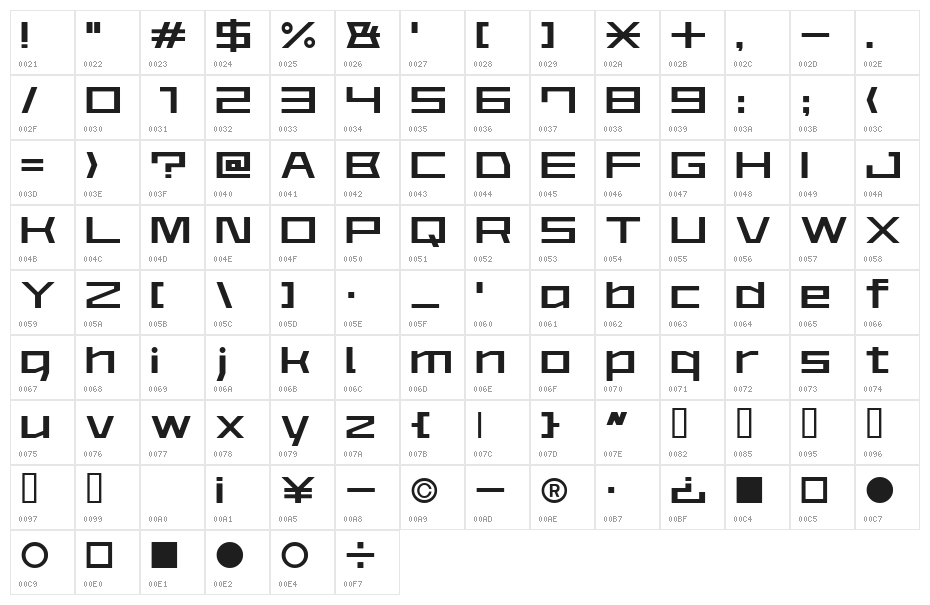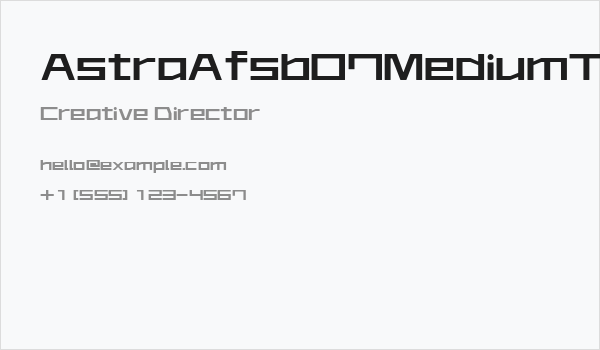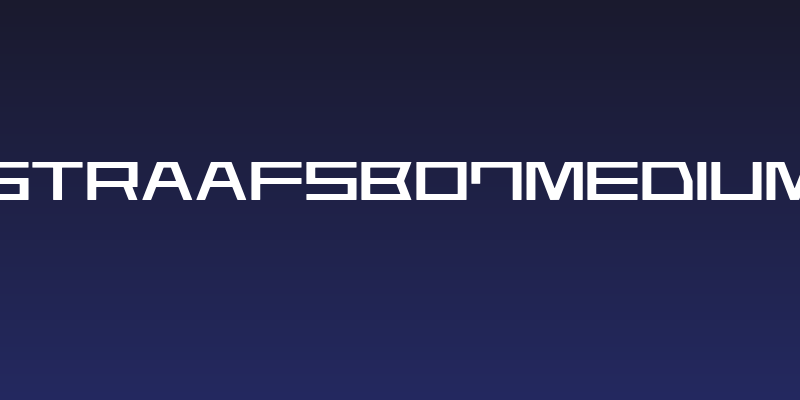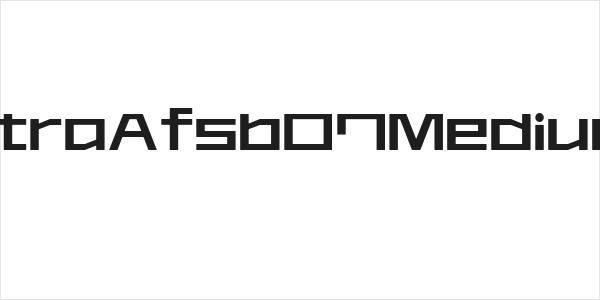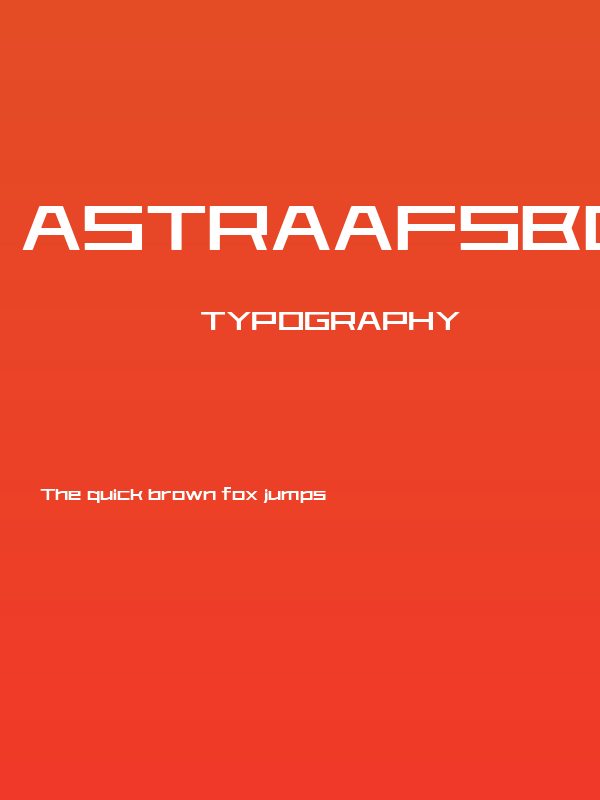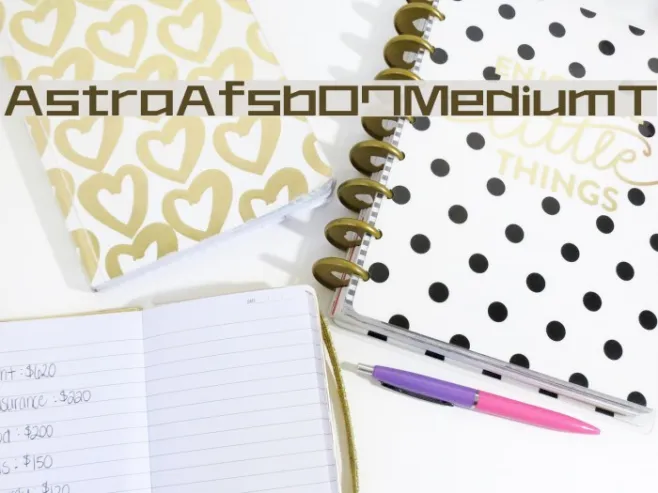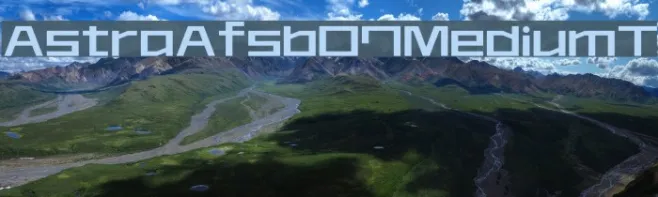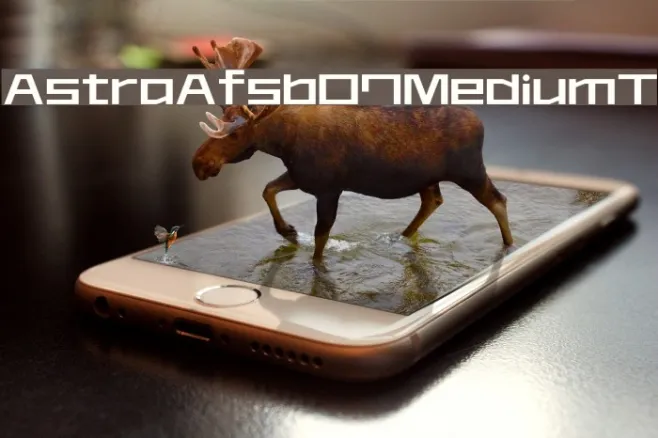
AstraAfsb07MediumT Font
AstraAfsb07MediumT Description
This font features a bold and geometric design with sharp angles and a futuristic aesthetic. The uppercase letters are uniform in height, creating a cohesive look, while the lowercase letters maintain a similar angular style. The numbers and special characters are consistent with the overall design, emphasizing a modern and technical feel. The font's structure is clean and precise, making it suitable for projects that require a contemporary and edgy appearance.
| Proposed Projects | Ideal for technology branding, sci-fi themed designs, video game interfaces, and modern advertising. |